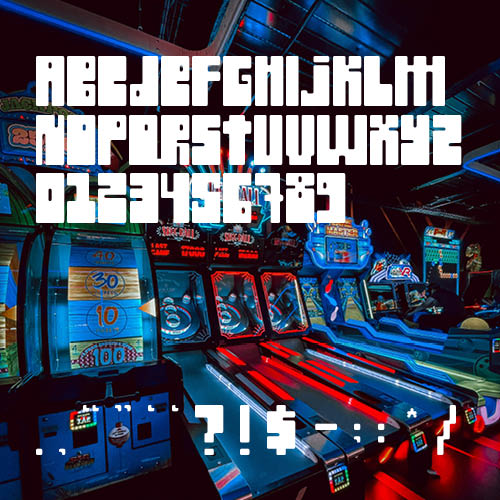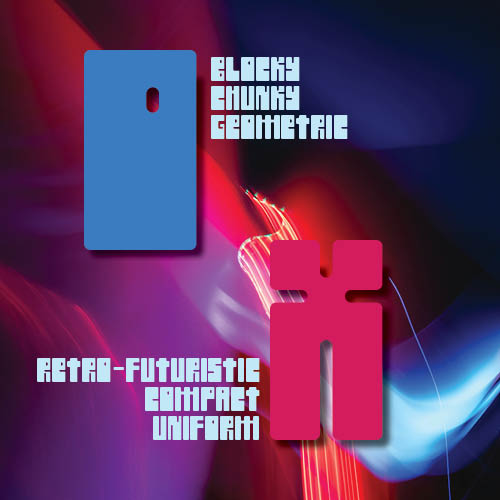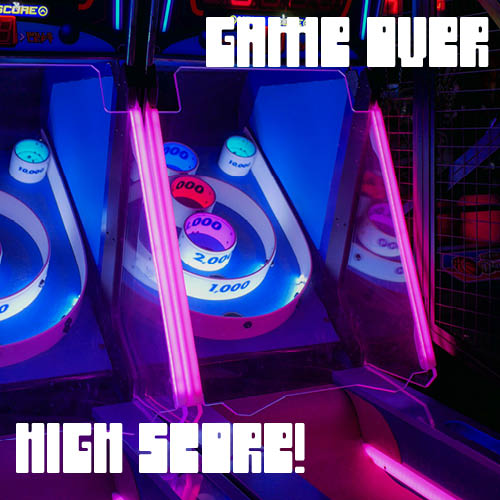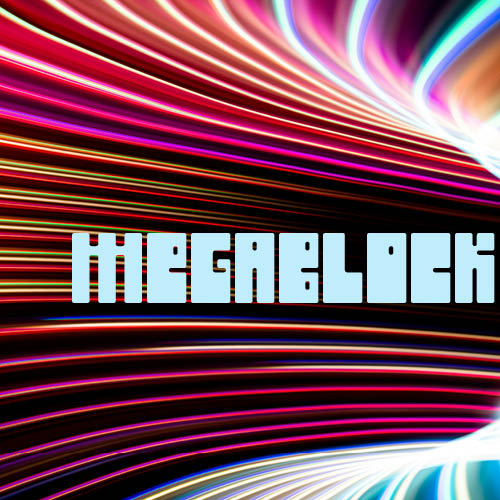
• This font is a bold, block-driven display typeface built on a rigid grid system. Every letter feels carved from solid rectangles, with thick strokes, squared corners, and tightly packed forms that create a dense, monolithic presence. Its construction feels modular and pixel-influenced, giving it a distinctly arcade-era, retro-digital personality.